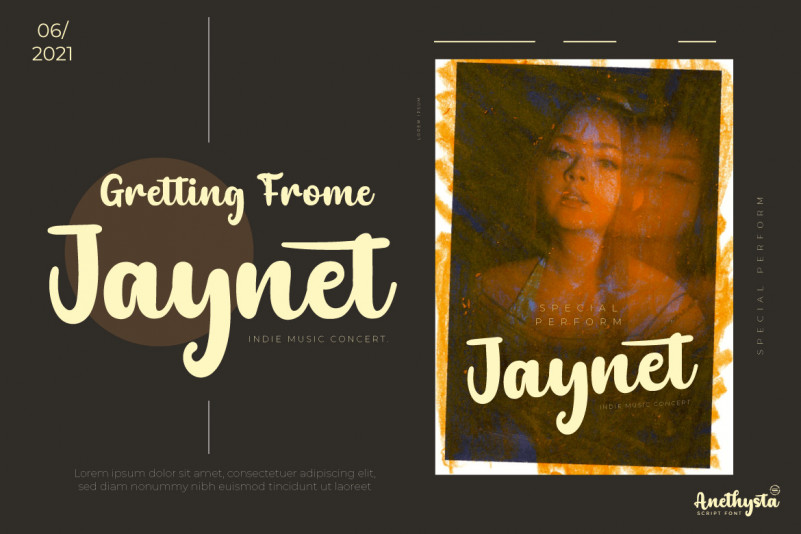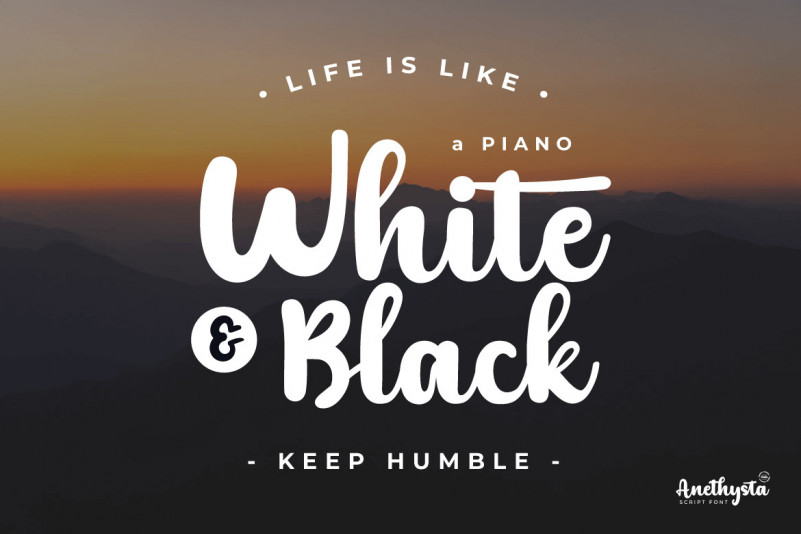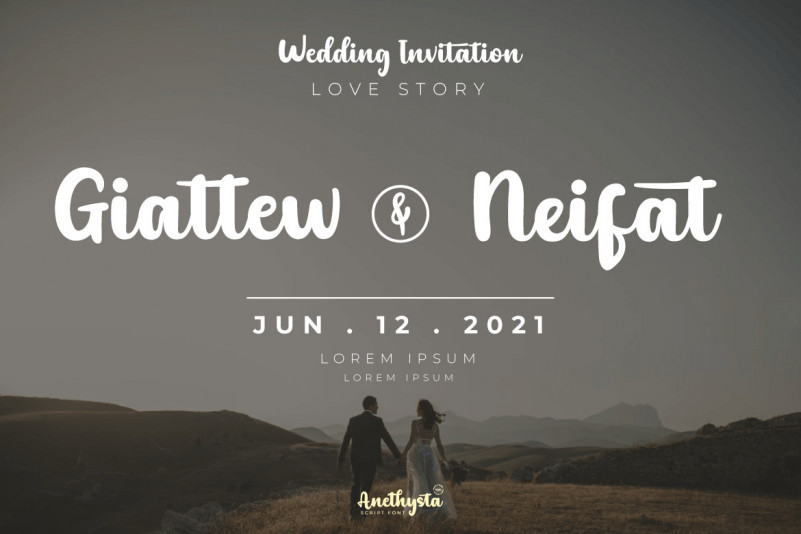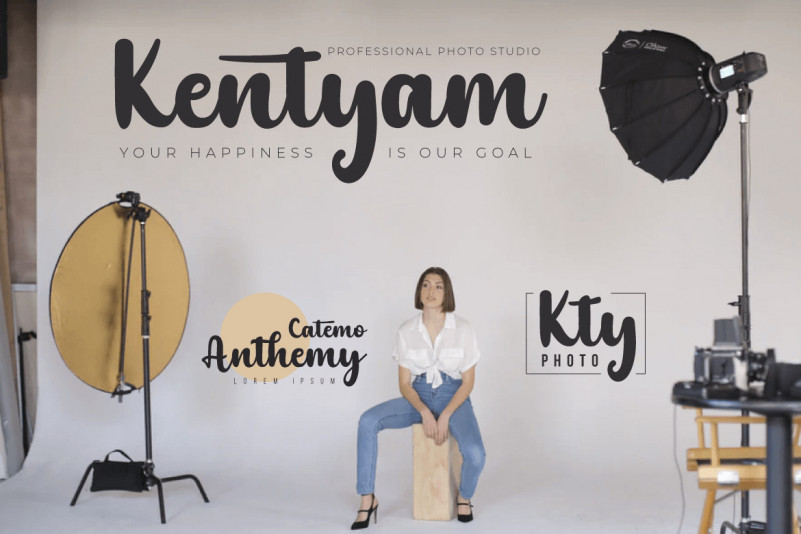
Anethysta Font
Anethysta Script Font
This is an authoritative bold script font carrying a crisp and flexible theme for use in various projects, feminine or masculine this font will remain elegant when you use it, this font has a unique and different impression but is still beautiful to look at. made with natural handwriting to create an attractive impression when all your audience sees it.
This font is designed by considering the portion and composition that suits your needs, also designed with a natural hand touch, has alternative features, ligatures and also supports multi-language, So this font is suitable for crafts, outdoor activities, logotypes, posters, titles, banners, wedding invitations, product packaging logos, quotes, social media page covers, book covers and more.